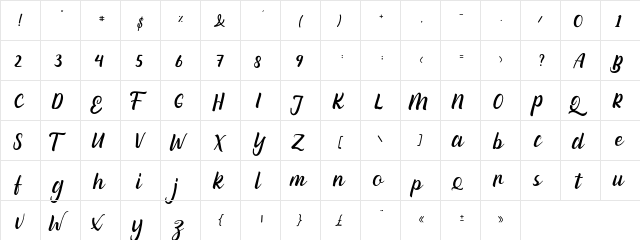
Bangga FREE Regular
Design Context for Bangga FREE Typeface
Bangga FREE is a composed and adaptable typeface that performs quietly and consistently across a wide range of design contexts.
Pro Tip: Pair Bangga FREE with a font of contrasting weight or personality to build a more expressive typographic hierarchy.